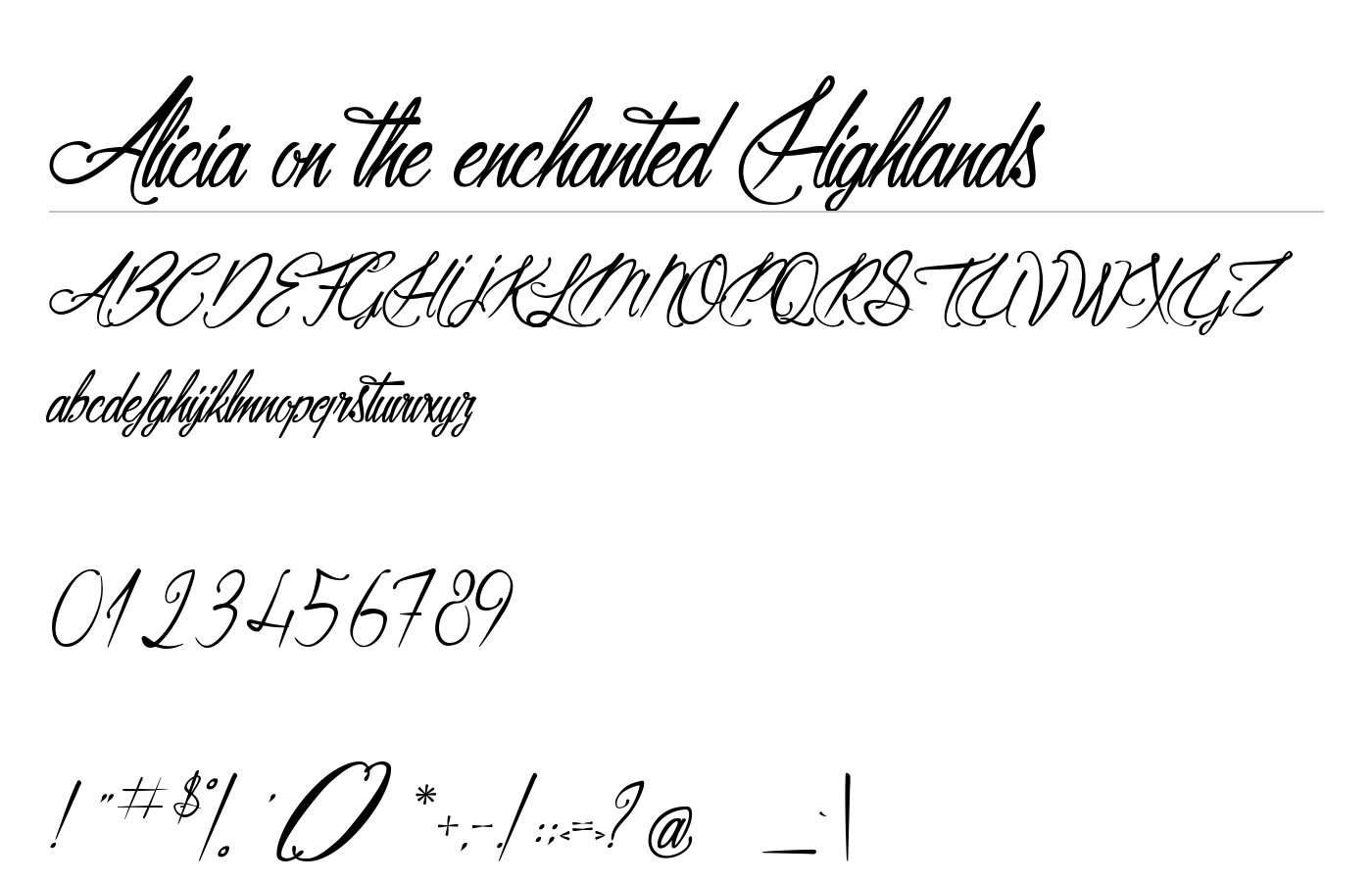
Alicia on the enchanted Highlands is an elegant, handwritten script font with a delicate and flowing style that feels both sophisticated and whimsical. Its slender, smooth strokes and graceful letterforms lend it a romantic and refined personality, making it perfect for invitations, branding, and decorative uses where a touch of charm and elegance is desired. This font shines in contexts that benefit from a personal, artistic touch, such as wedding materials, fashion logos, and upscale packaging.
Alicia on the enchanted Highlands Font
About Alicia on the enchanted Highlands Font
| Font family | Alicia on the enchanted Highlands Font |
| Designer | Maelle.K |